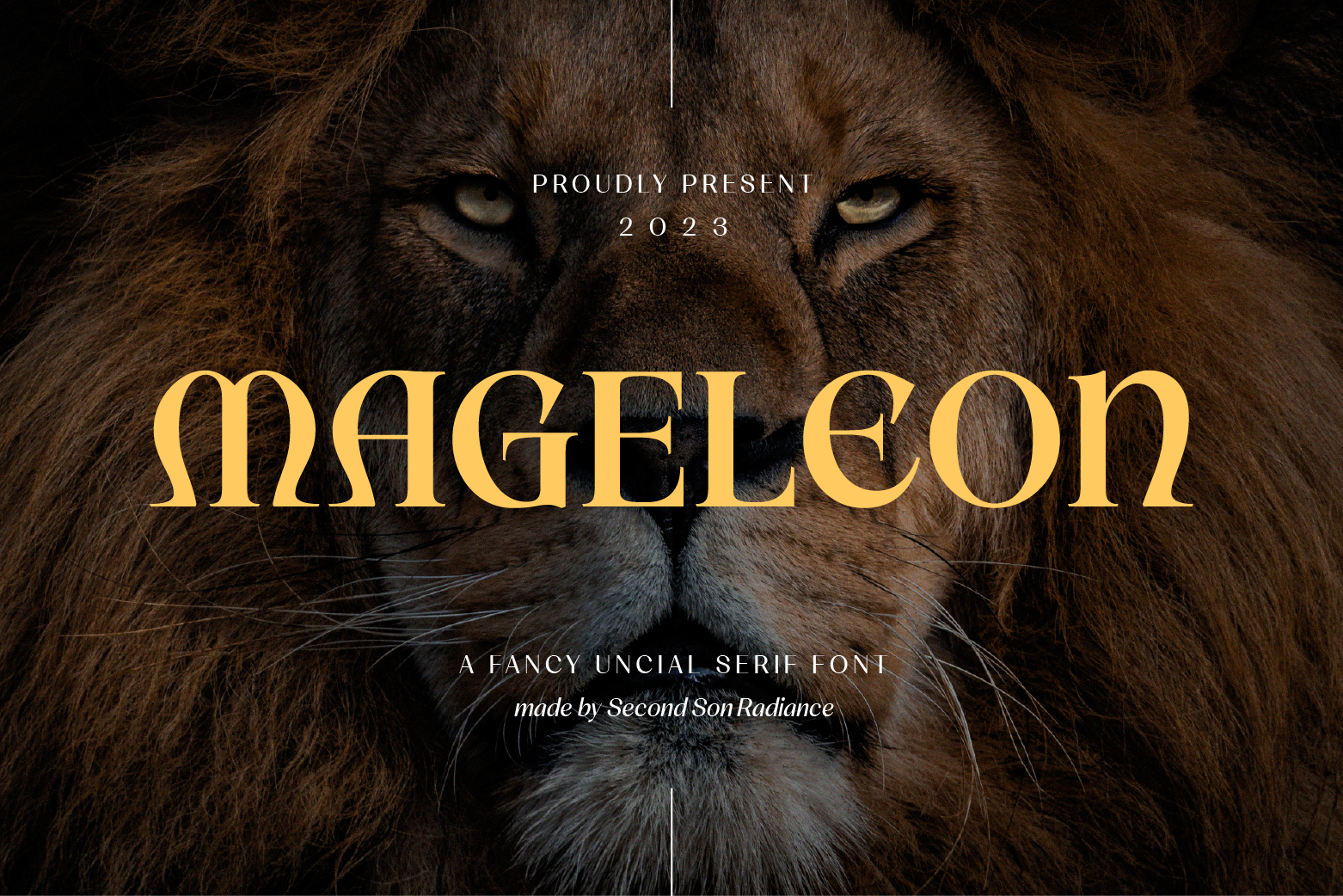
SS Mageleon - Uncial Serif Font
Mageleon Uncial Serif - Classic and Fancy Serif Font
Mageleon is a fancy and classy serif font with a touch of elegance and charm. It is perfect for your up coming projects. Such as luxury logo and branding, classy editorial design, woman magazine, cosmetic brand, fashion promotional, art gallery branding, museum, historical of architectural, boutique branding, stationery design, blog design, modern advertising design, card invitation, art quote, home decor, book/cover title, special events and any more.